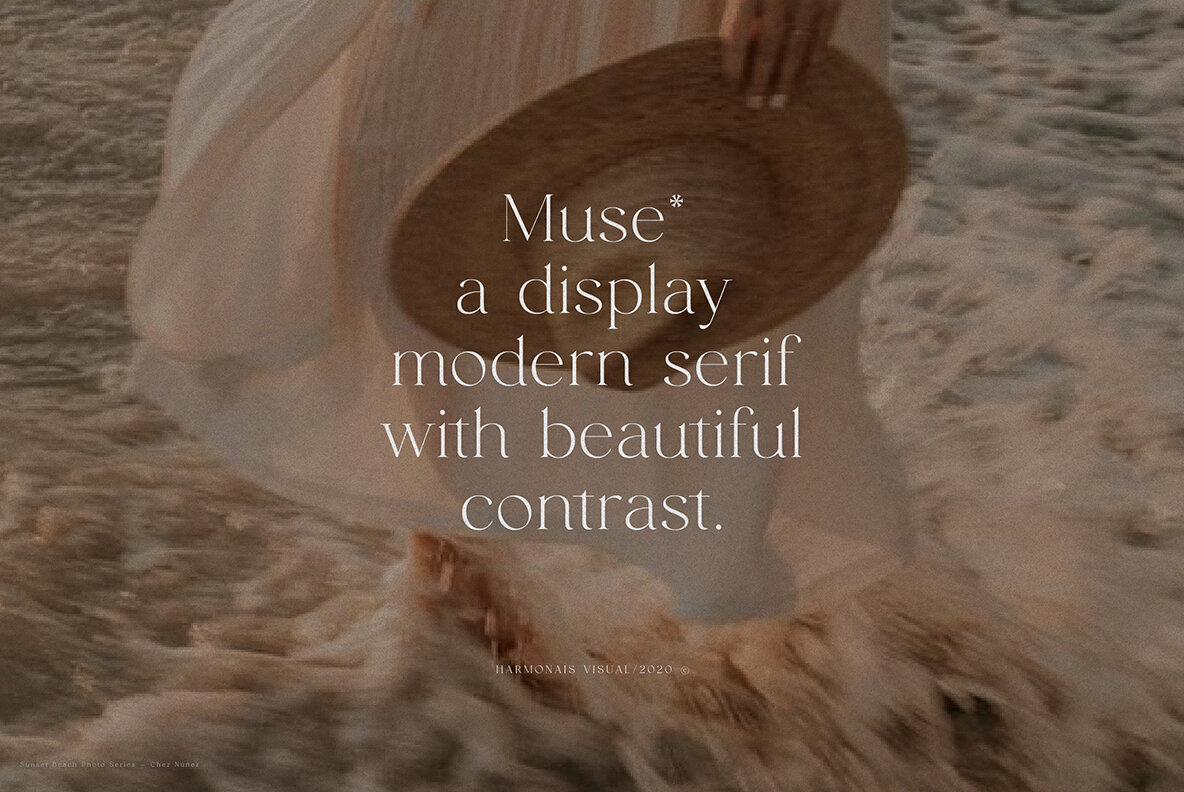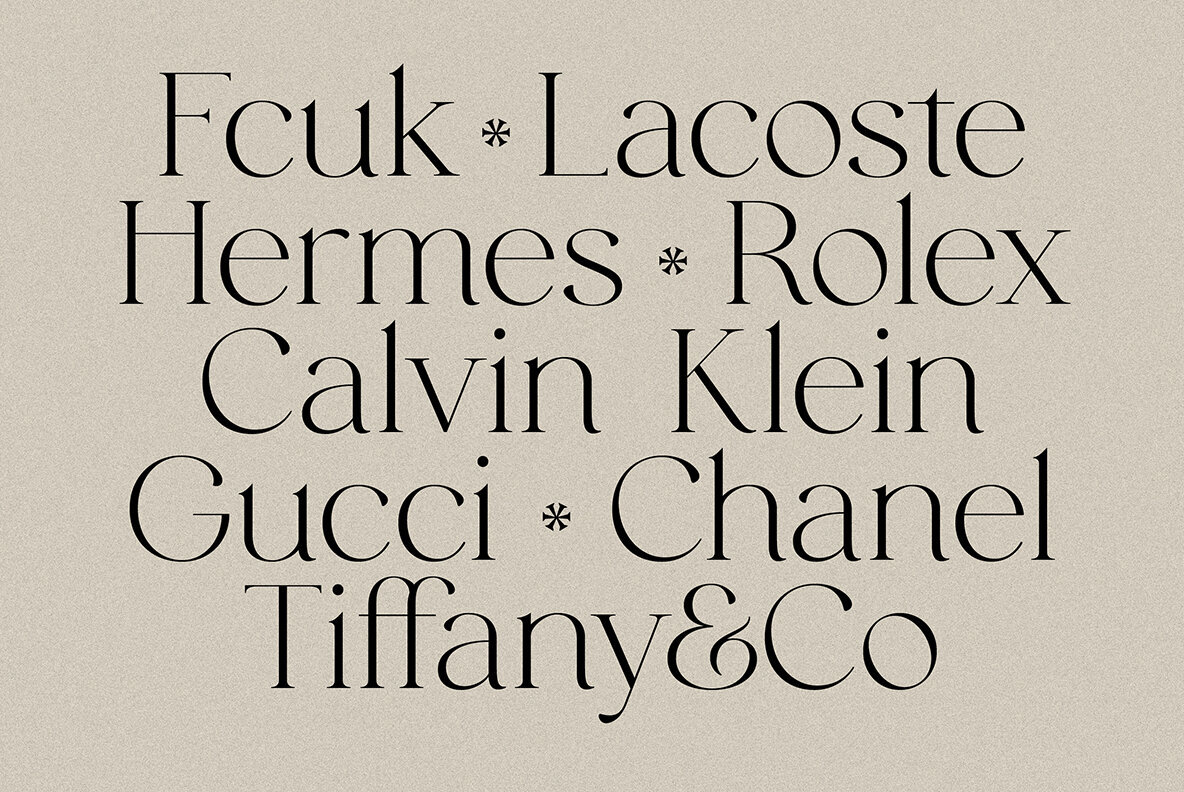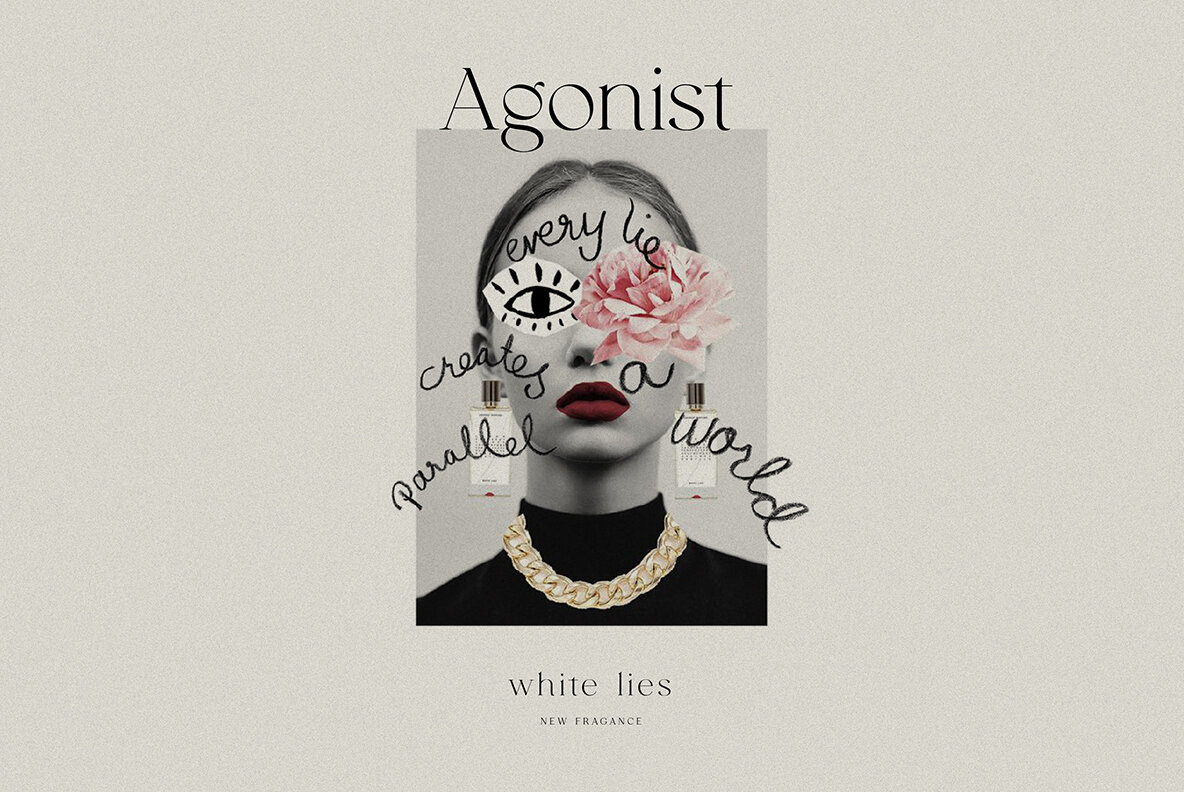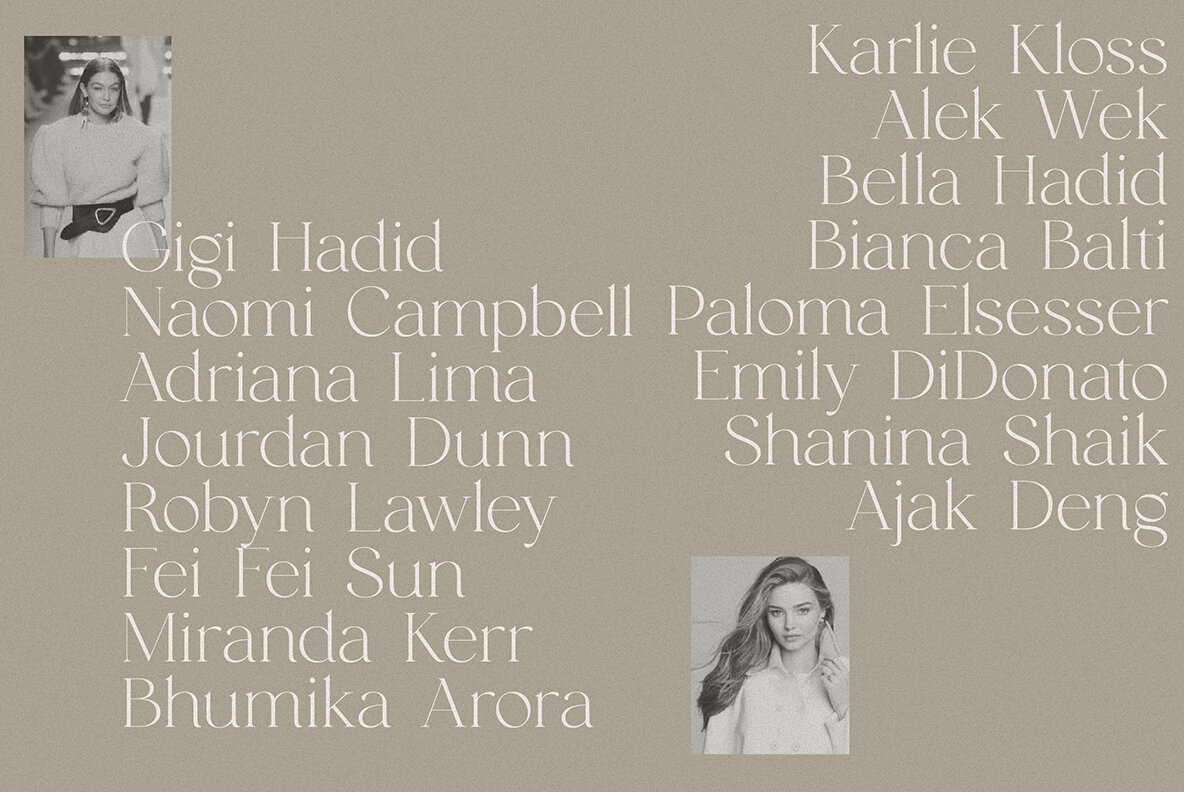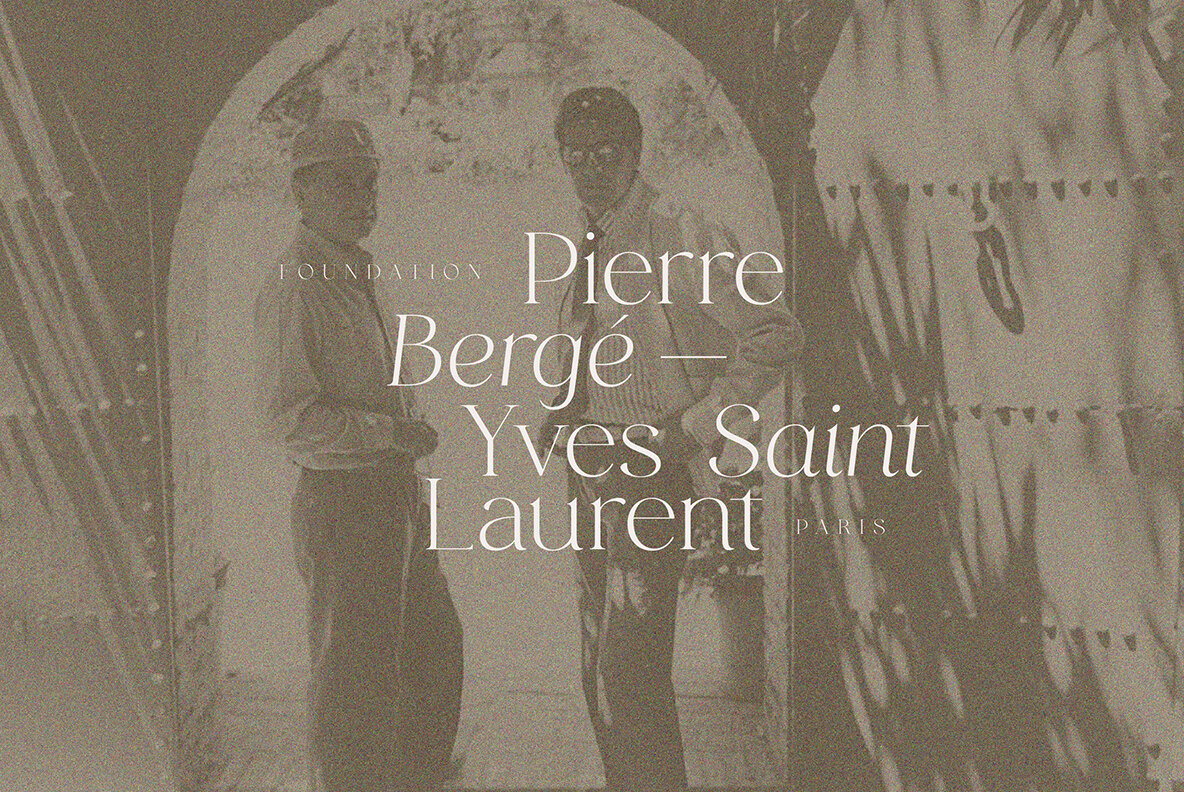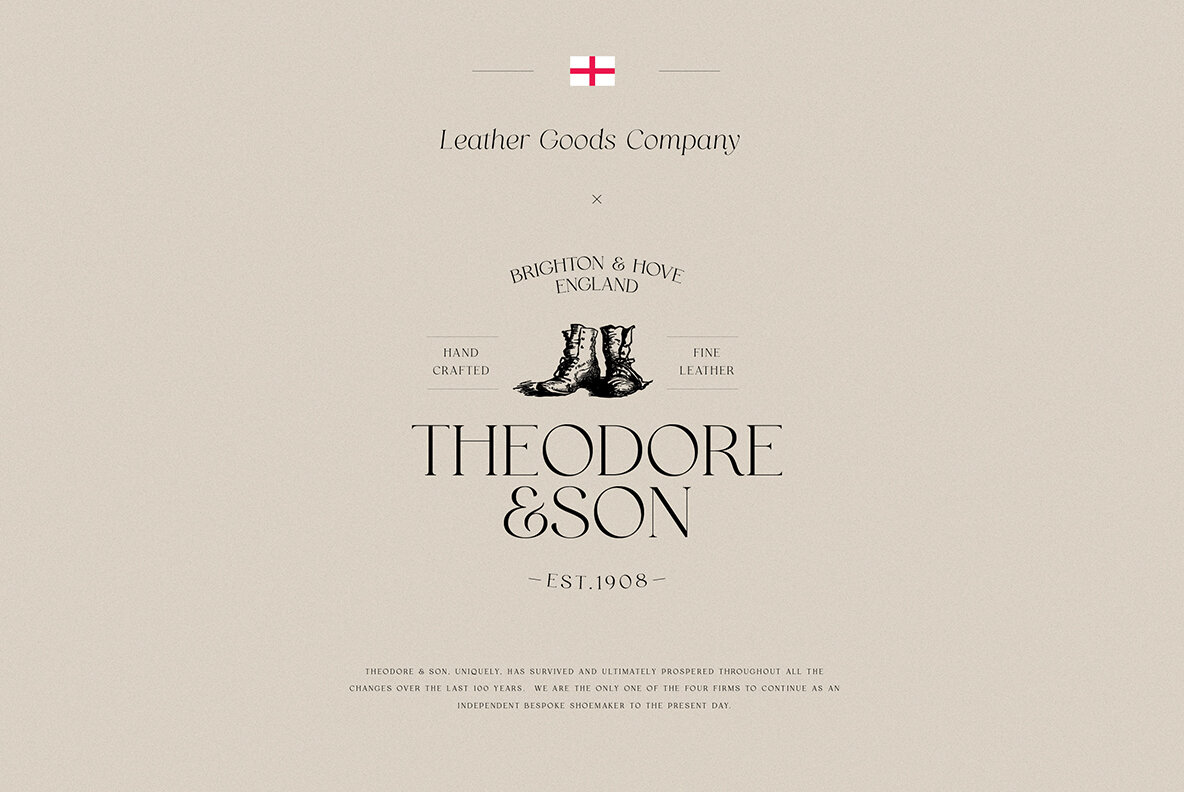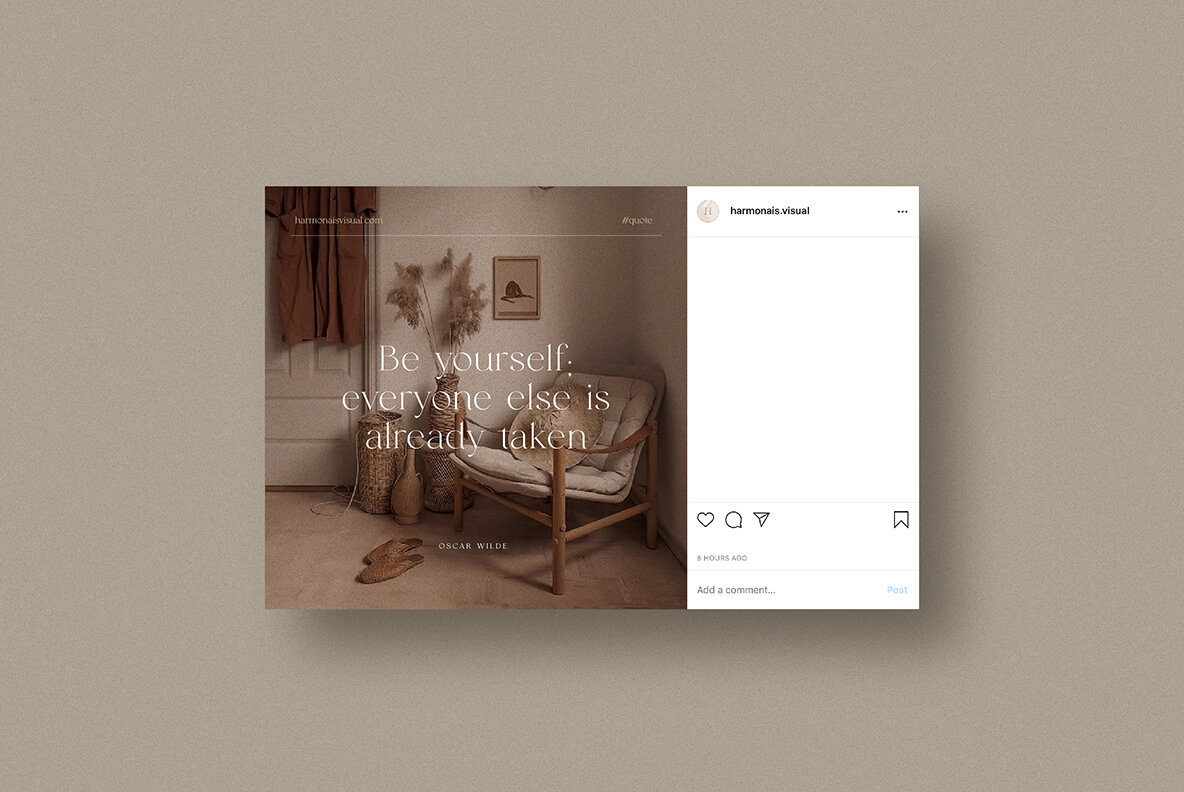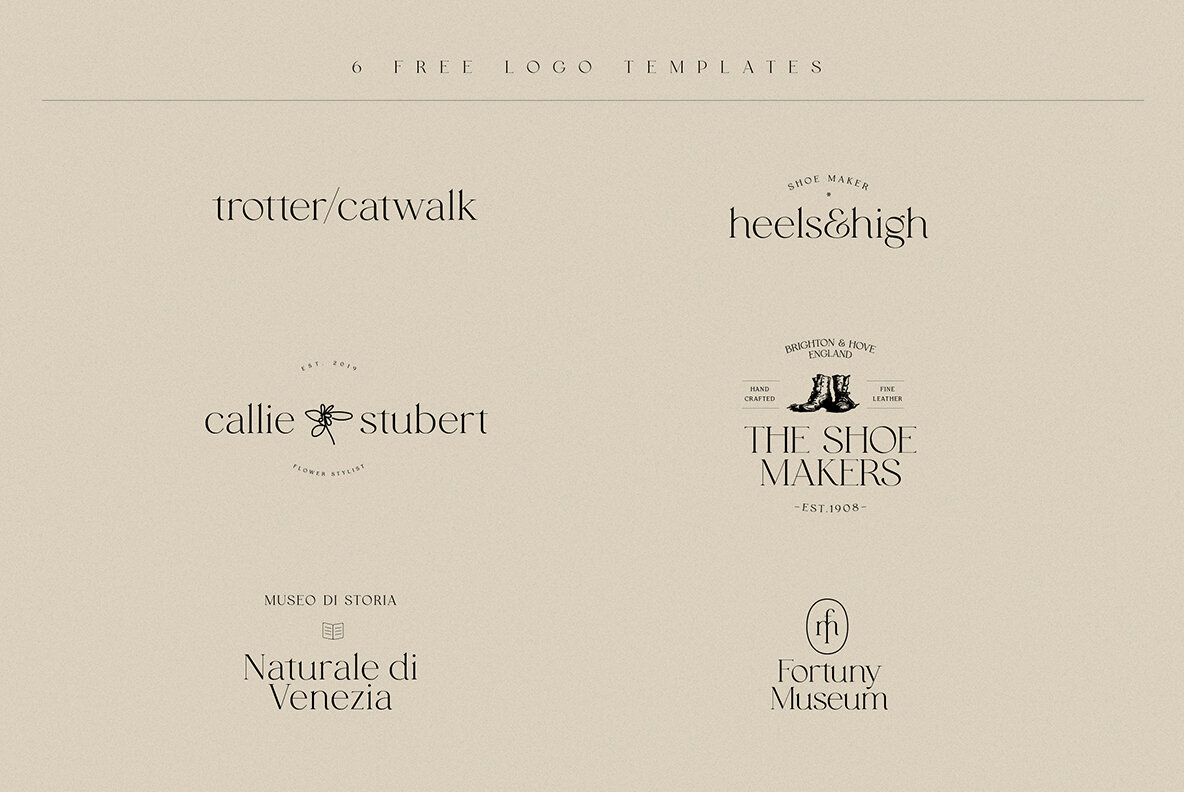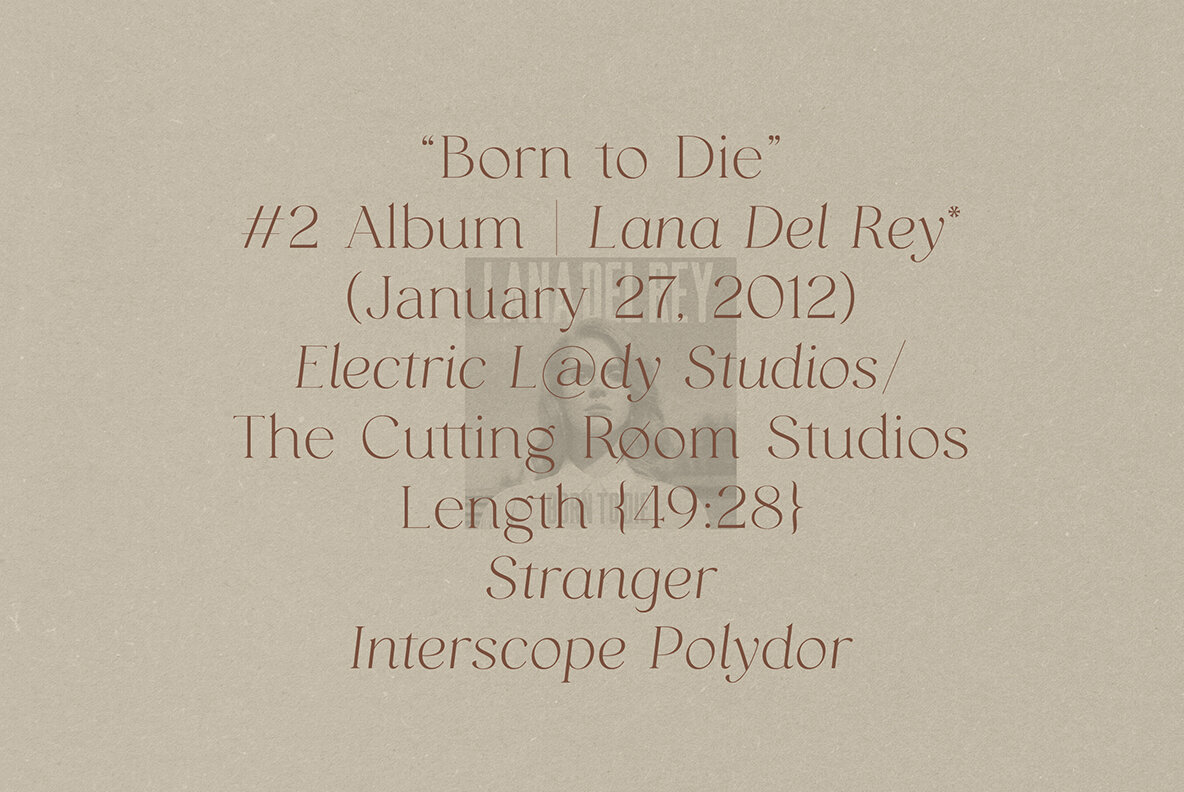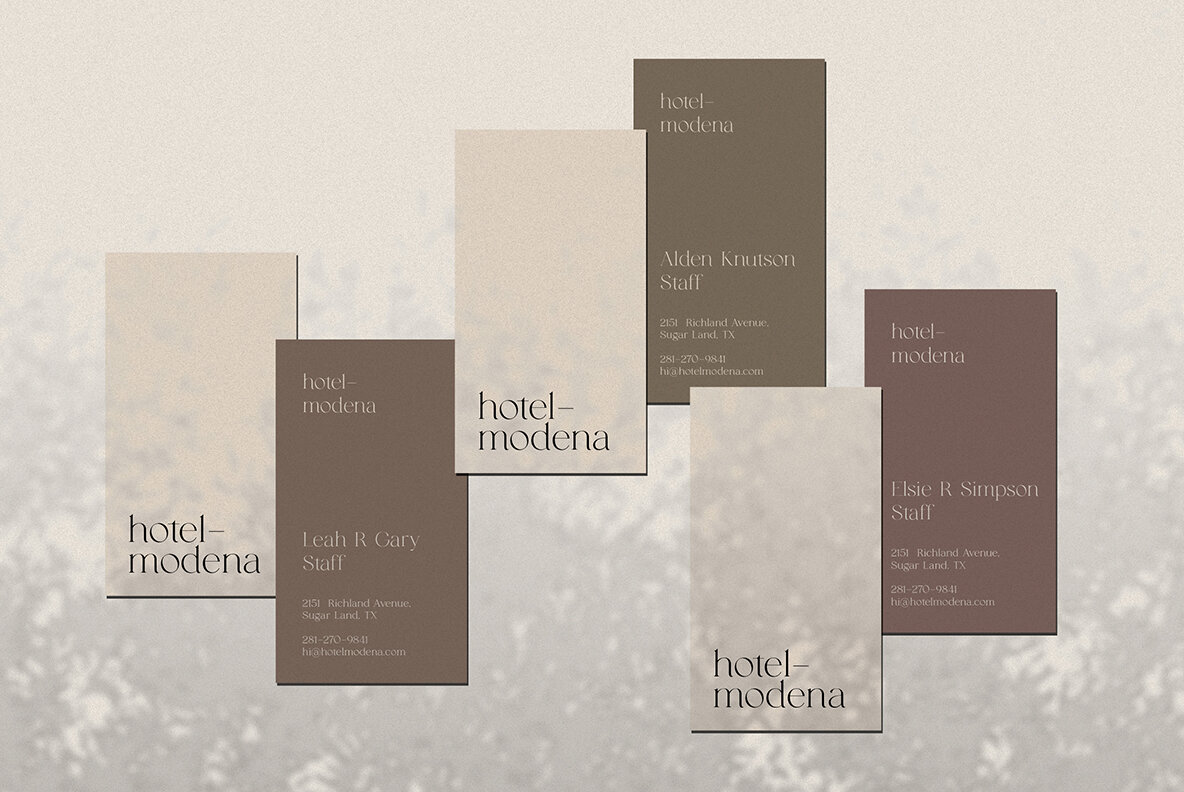
Muse Font
Muse Font and Logo Templates (2 fonts)
Muse, a chic & elegant display modern serif with beautiful contrast. Specially designed for fashion-themed projects, perfectly suitable for creating elegant, chic, lifestyle design such as logos, title, and magazine and more. The font features standard ligatures.
⁃ Muse now supports all European languages and Vietnamese.